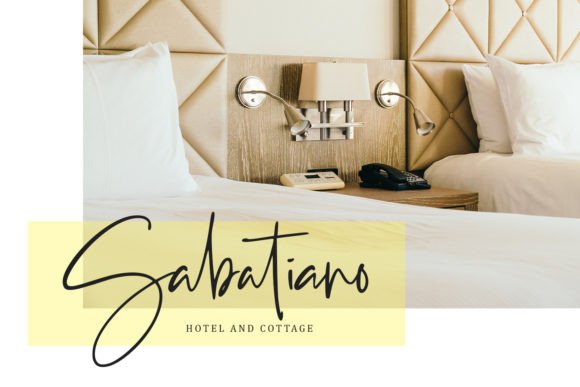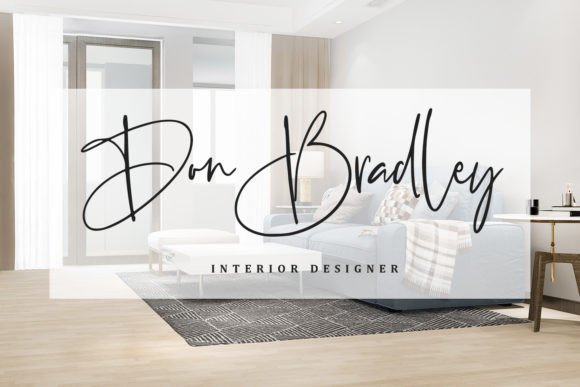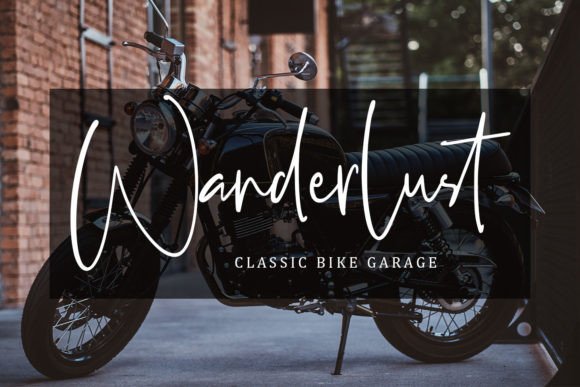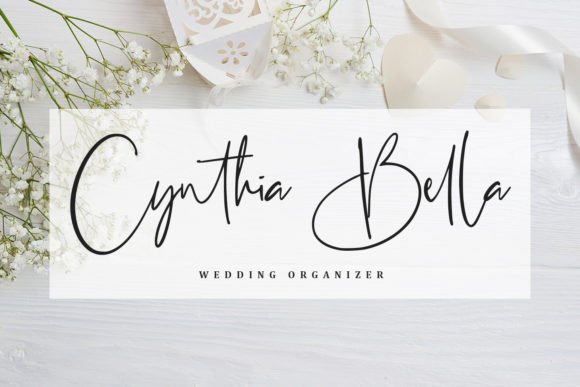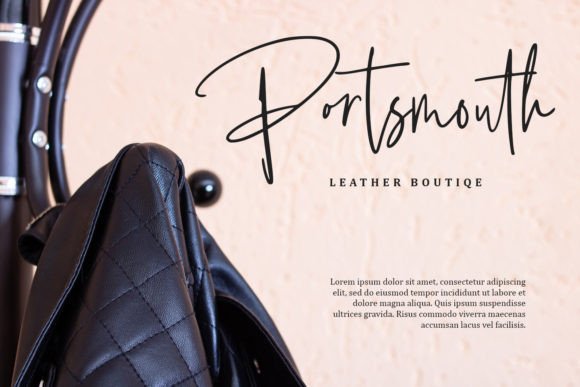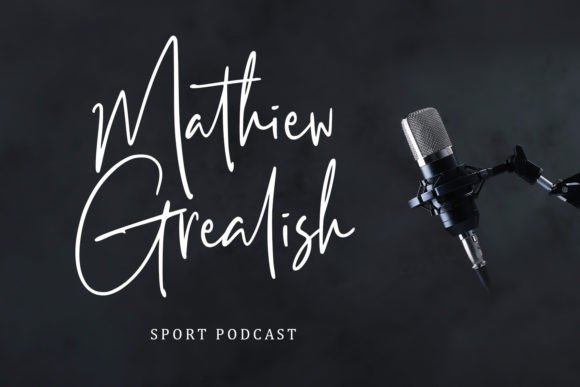
The Magic of Ghostinger Font: A Designer’s Delight
I’ll never forget the time I was working on a wedding invitation project, and my client asked for a font that was both elegant and playful. I scoured the internet, tried out countless fonts, but nothing seemed quite right. That was until I stumbled upon Ghostinger Font. It was love at first sight! 💕
Ghostinger is a stylish and elegant signature script font that has become a staple in my design toolkit. Its incredibly versatile style makes it perfect for creating gorgeous wedding invitations, beautiful stationary art, eye-catching social media posts, and much more!
- 💫 Elegant and sophisticated, yet approachable and playful
- ✅ Highly versatile, suitable for a wide range of design projects
- 🔥 Beautifully crafted, with intricate details and flourishes
- 👍 Easy to read, even in smaller sizes
- ⚠️ Some users may find the font a bit too ornate for certain projects
- 🤔 Limited availability of certain characters and glyphs (but we’ll get to that later)
The Story Behind Ghostinger: Designer Inspiration
While the true story behind Ghostinger’s creation is unknown, it’s easy to imagine a designer pouring their heart and soul into crafting such a beautiful font. Perhaps they were inspired by the elegant scripts of the past, or maybe they wanted to create a font that would make wedding invitations and social media posts stand out.
| Font Name | Ghostinger Font |
| Author | Abodaniel |
Q: Is Ghostinger suitable for body text?
A: While Ghostinger is a beautiful font, it’s best suited for headlines, titles, and short paragraphs. For longer body text, you may want to choose a more legible font.